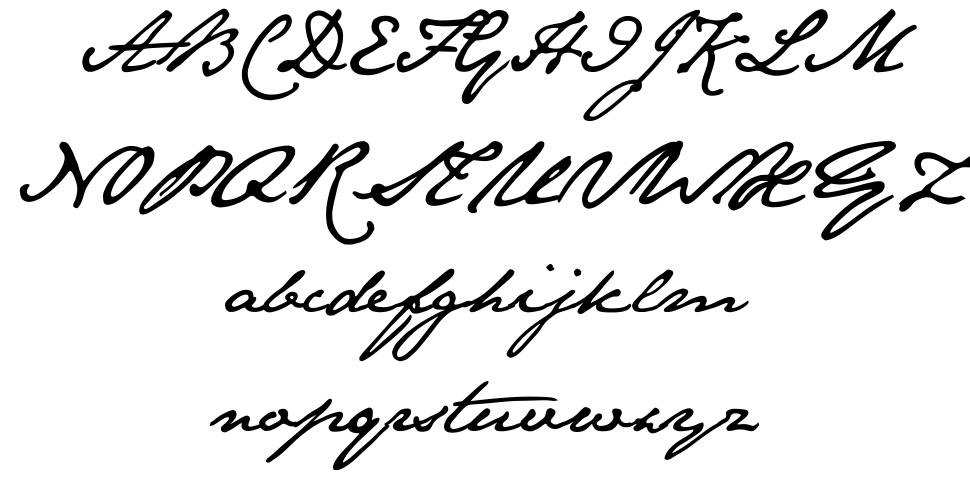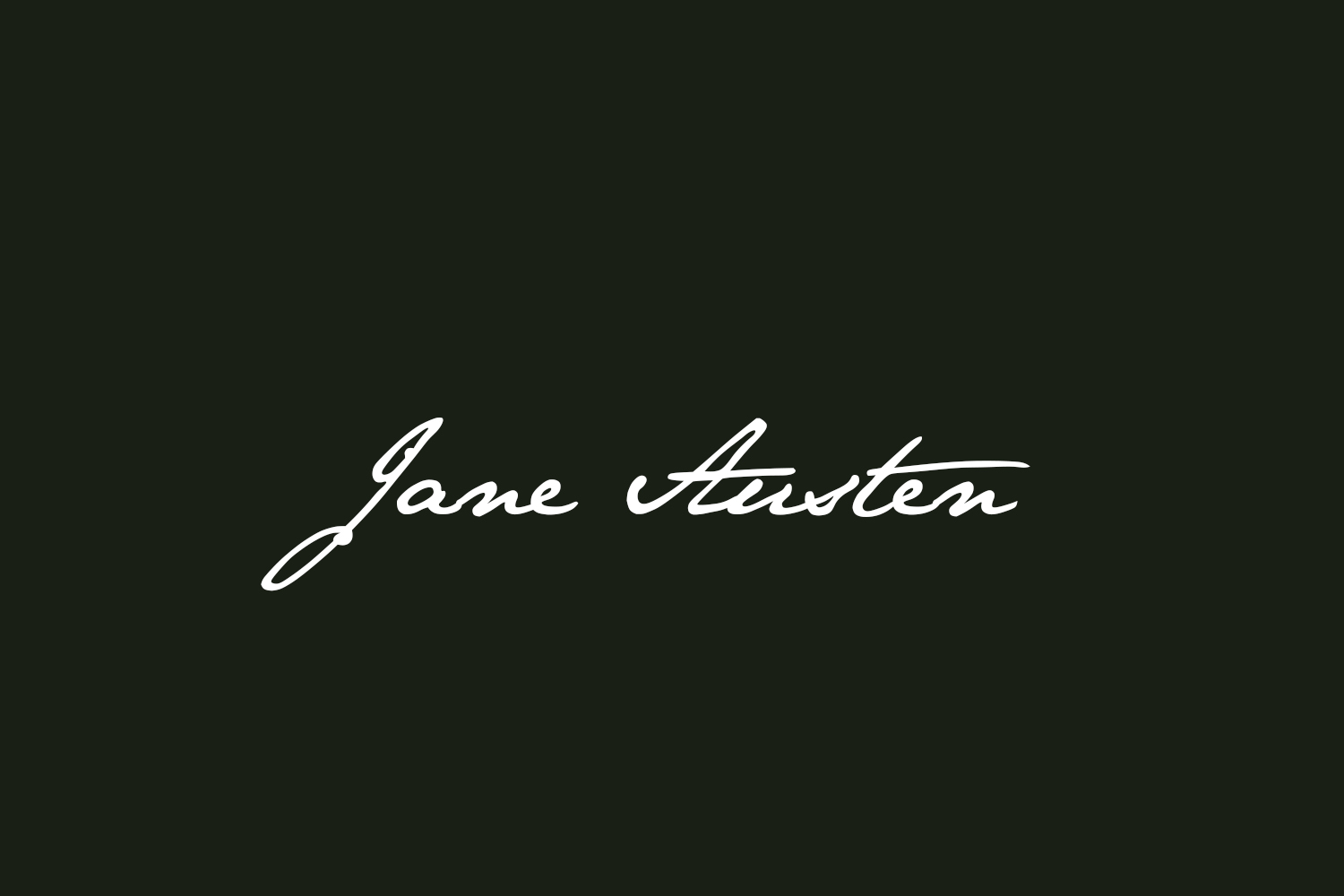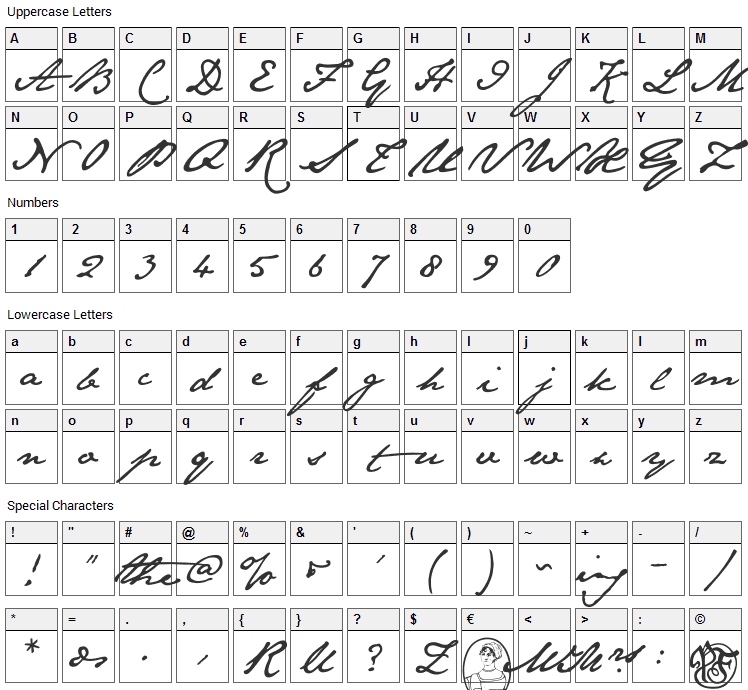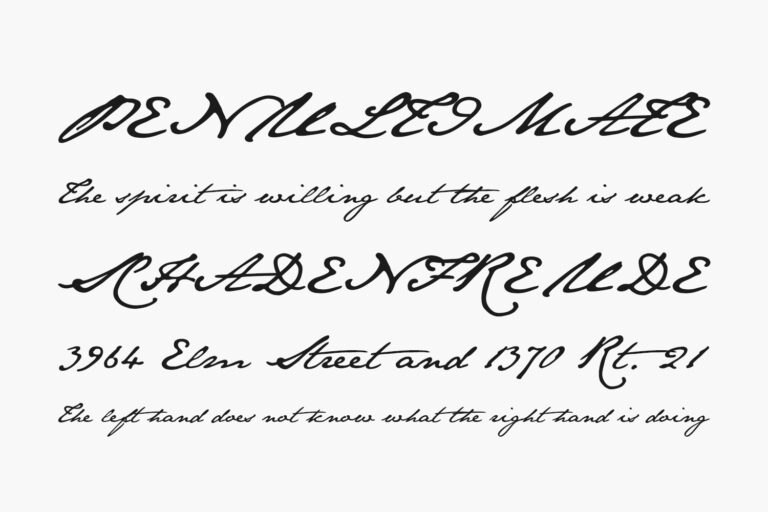
Jane Austen Font
Jane Austen Font - Jane austen is a script type font that can be used on any device such. Jane austen is a free font for personal use created by pia frauss.
Jane austen is a script type font that can be used on any device such.